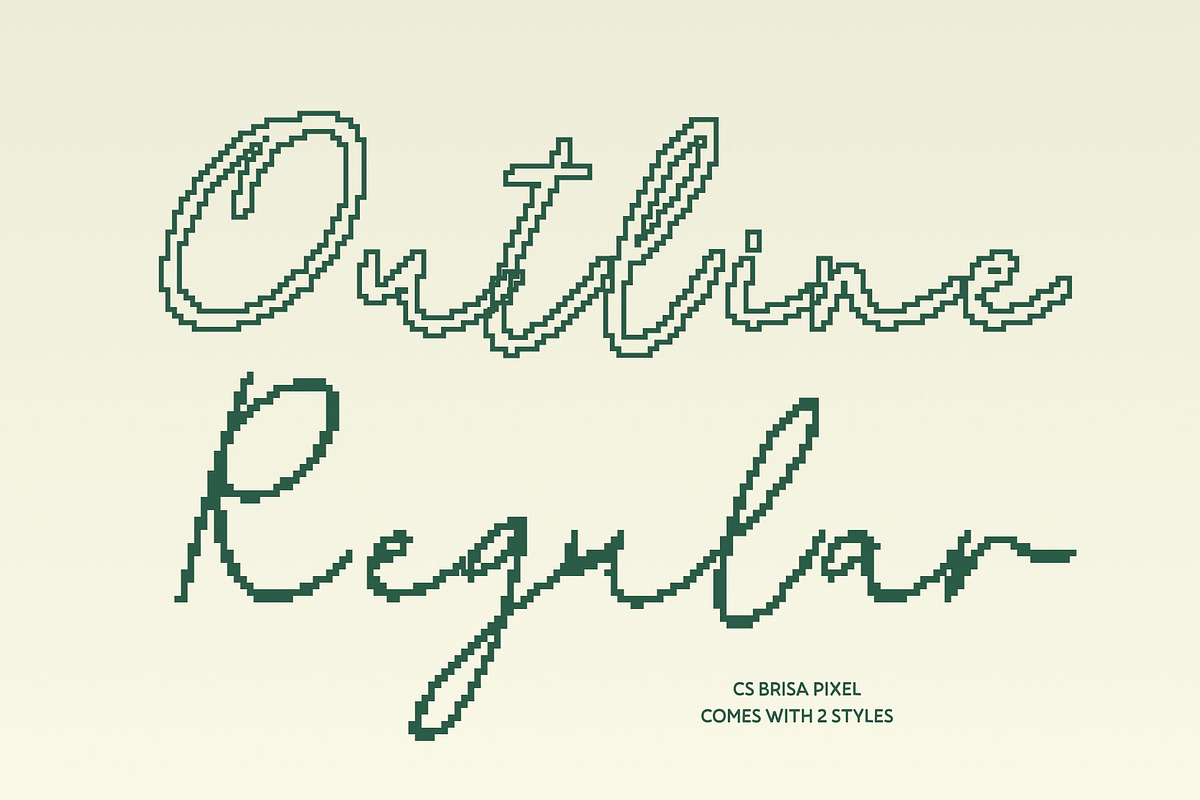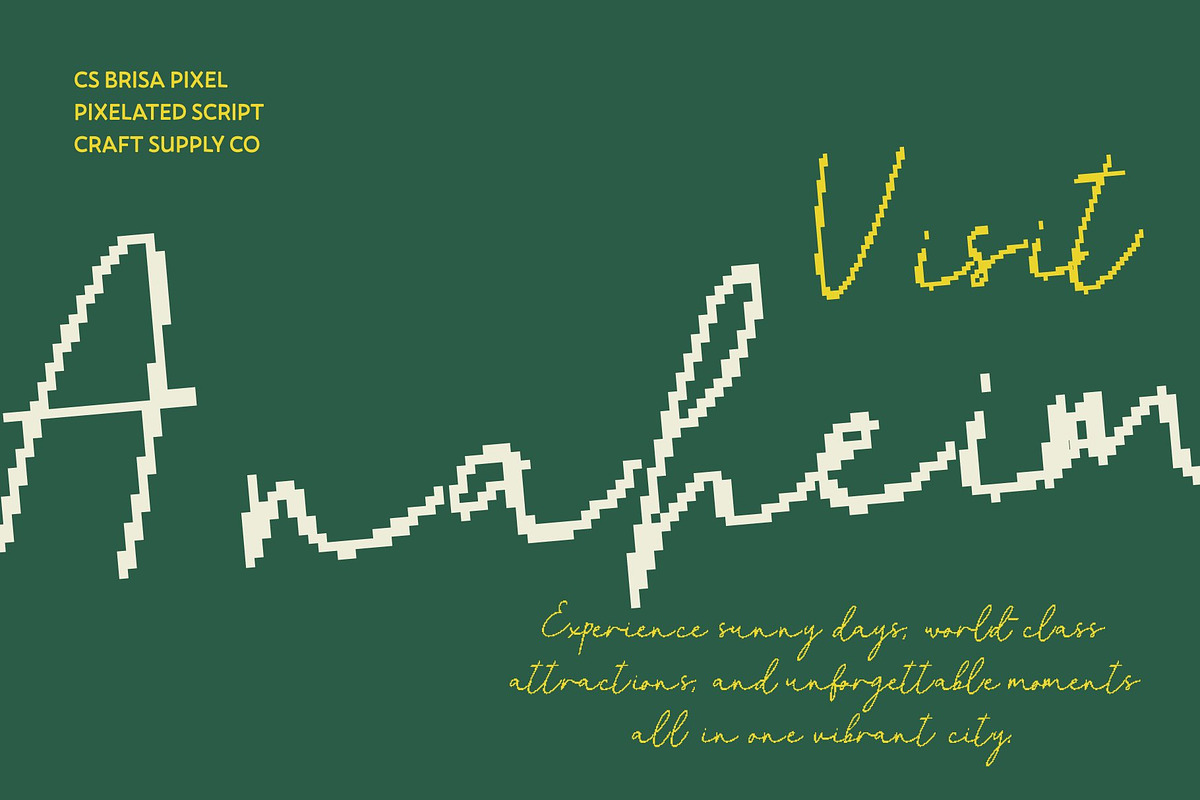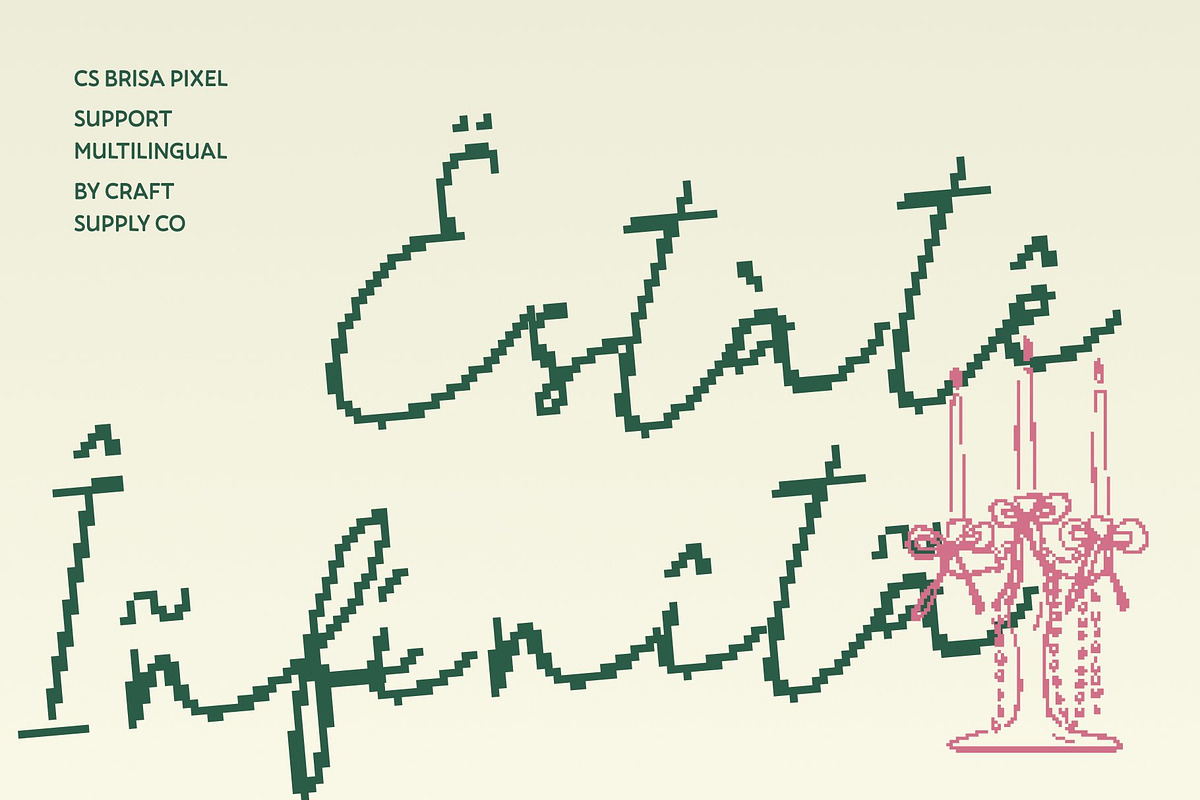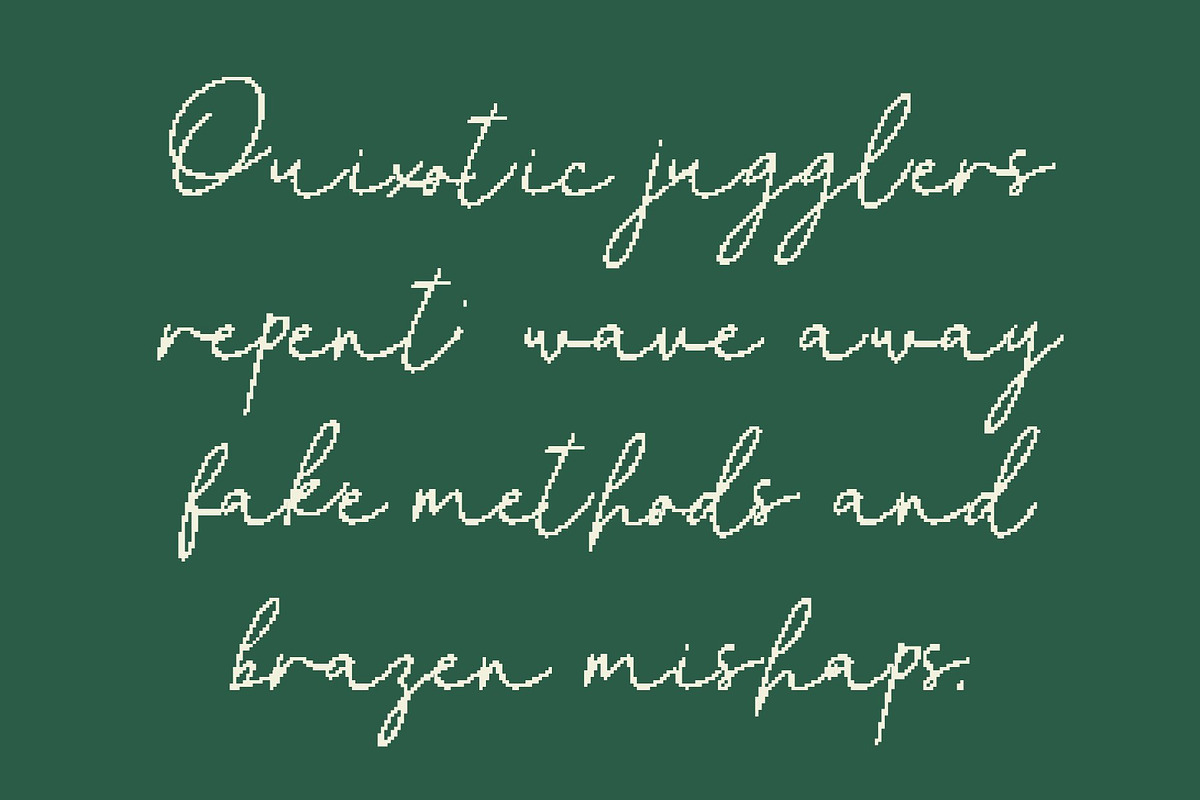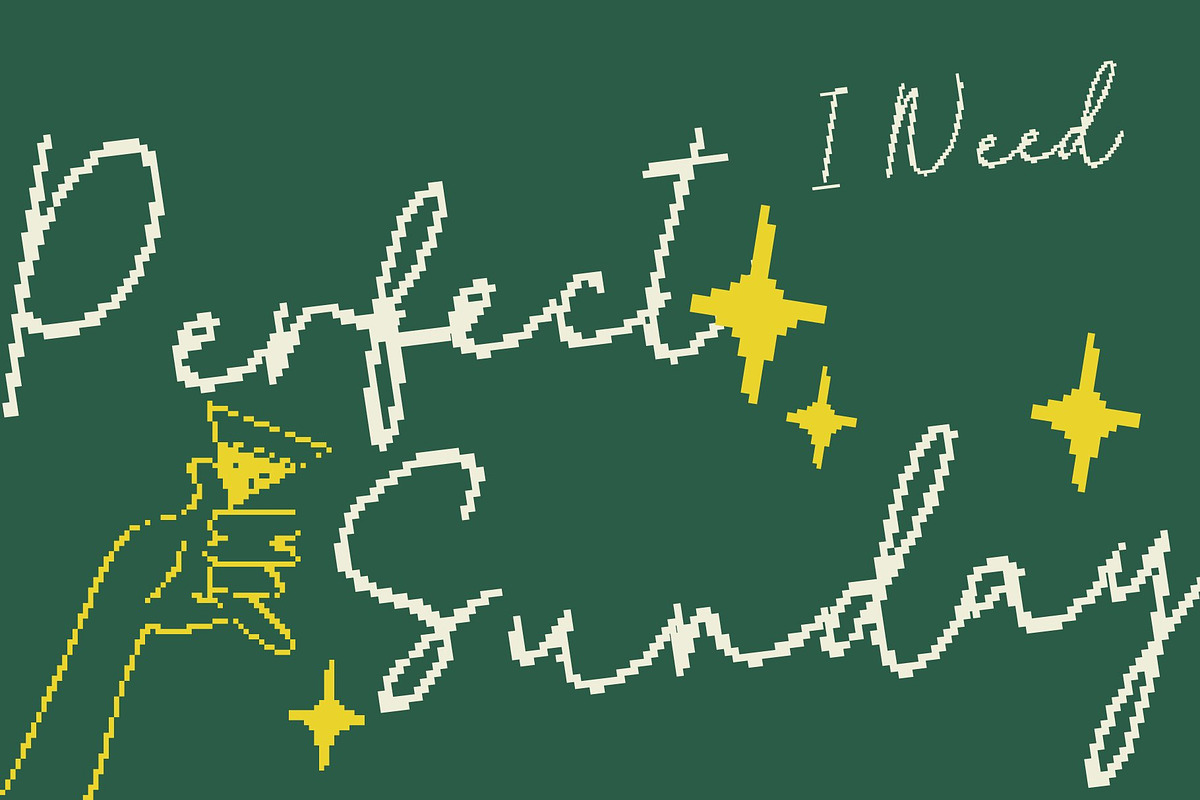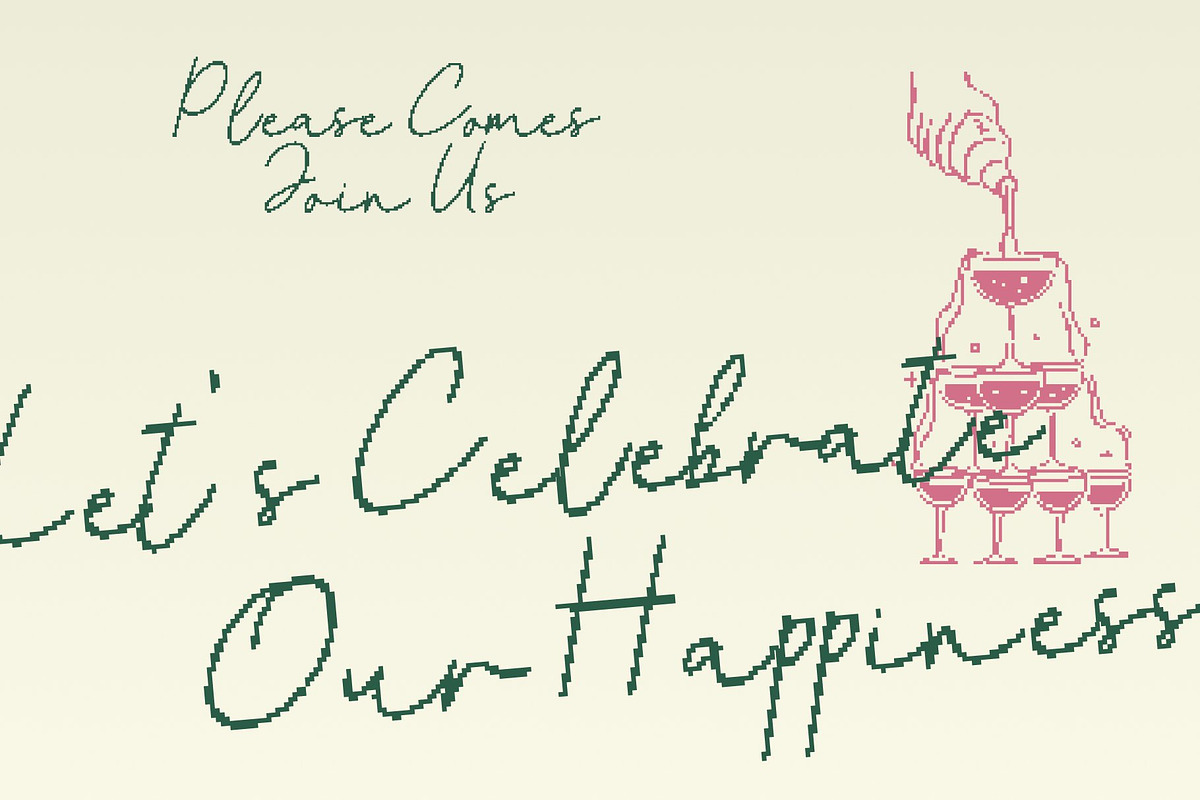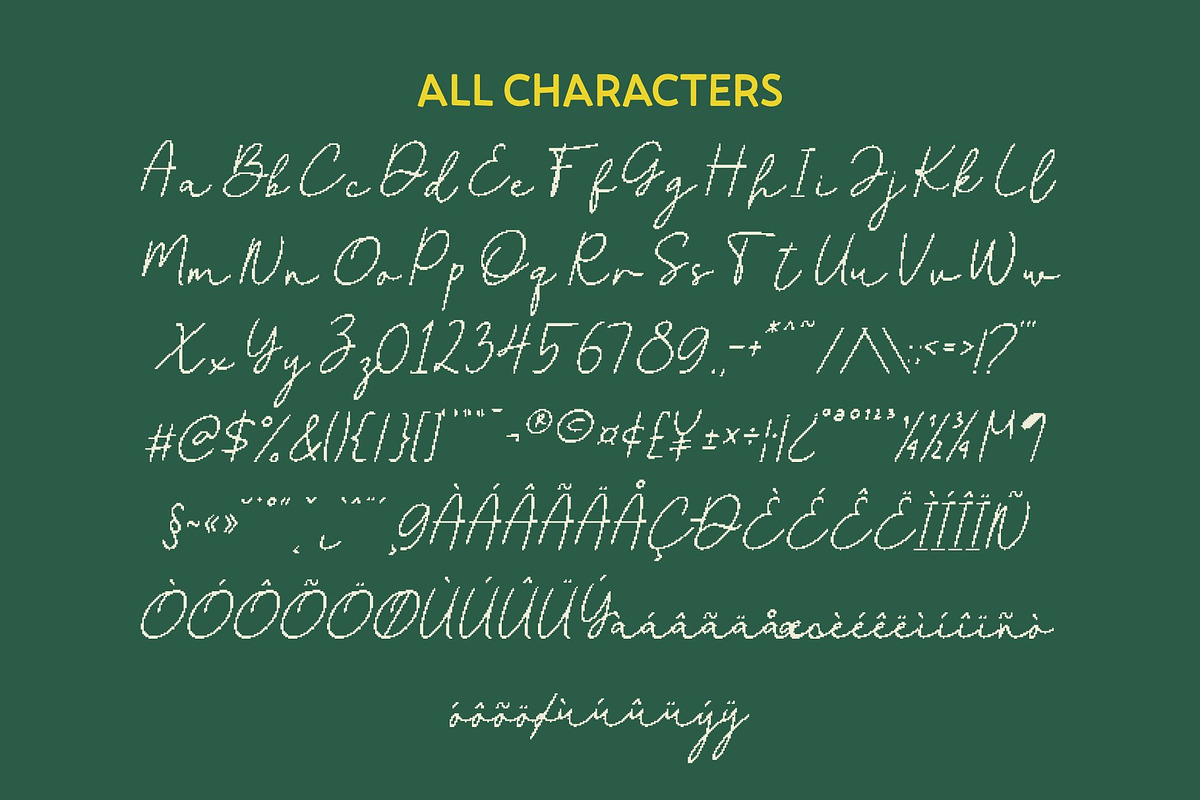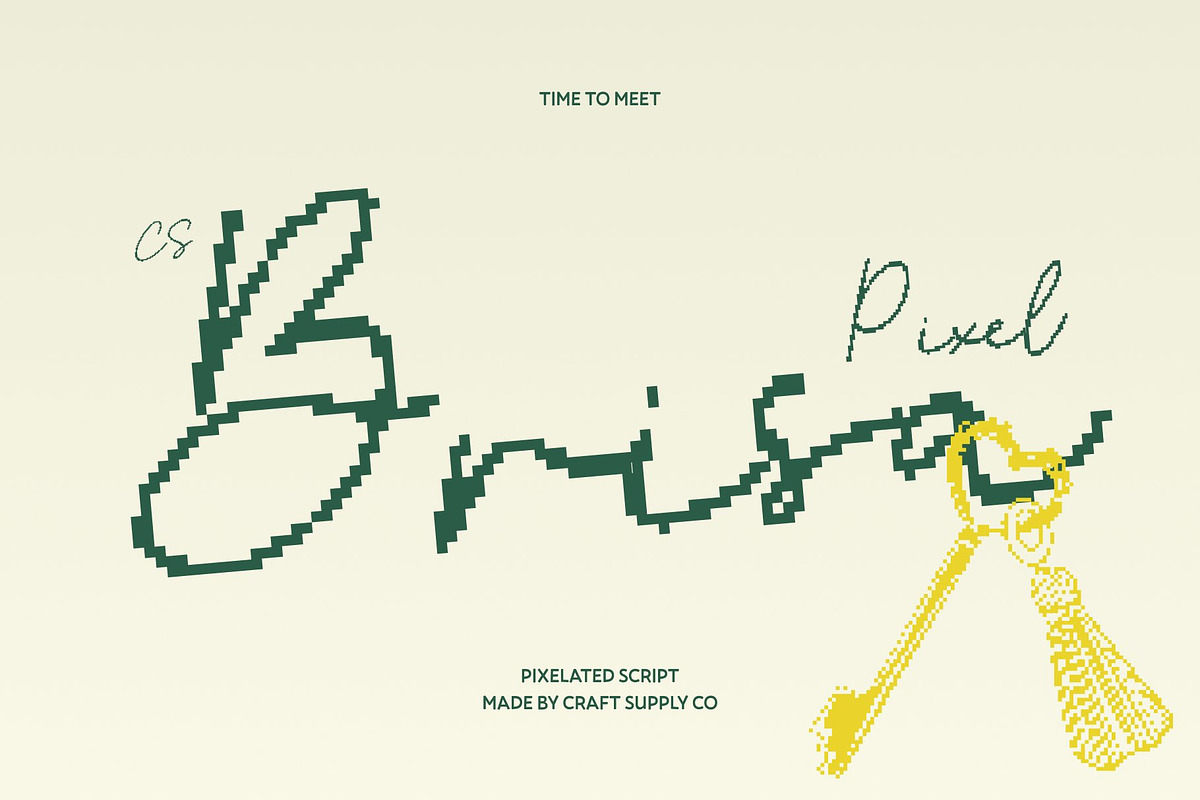
CS Brisa Pixel
CS Brisa Pixel – Grace in Motion with Timeless Style
Monoline Script with Pixel Elegance This is a monoline script font that transforms smooth, flowing handwriting into a pixel-inspired design. Each letter retains its graceful curves and rhythmic motion while adopting a subtle digital texture, giving the font a modern, tech-friendly twist without losing its timeless sophistication. Perfect for designs that need both charm and clarity in digital or retro-themed projects.
Flowing Curves with Refined Pixel Character The gentle monoline strokes carry a natural sense of balance and elegance, now reimagined in pixel form. Every connection between letters maintains readability while adding a playful, structured aesthetic. This approach preserves the font’s fluidity while giving it a distinctive, eye-catching digital edge.
Stylish Motion for Contemporary Design The rhythmic movement of the letters creates a harmonious flow that feels alive yet precise. This font combines classic script grace with a crisp pixel finish, making it ideal for modern branding, fashion editorials, or any project where sophistication meets digital flair.
Perfect for Luxury and Romantic Digital Projects From wedding invitations and romantic layouts to high-end digital branding, this font adapts beautifully to a variety of creative needs. Its elegant, pixelated flow ensures every word feels polished, confident, and stylish, delivering timeless grace with a contemporary twist.